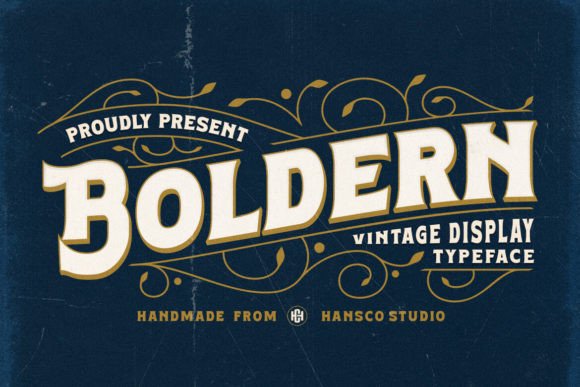
The Timeless Charm of Boldern: A Vintage Typeface to Elevate Your Designs
I’ll never forget the design project that had me on a font quest for what felt like an eternity. My client wanted a vintage vibe for their branding, and I was determined to deliver. After scouring the internet and trying out countless typefaces, I stumbled upon Boldern – a hidden gem that instantly transported me to a bygone era. If you’re a designer, crafter, or creative hobbyist looking to add a touch of old-time charm to your projects, you’re in luck! Boldern is a vintage typeface font that’s about to become your new best friend.
An Honest Review: The Good, the Great, and the Quirky
What I Love About Boldern ✨
- ✅ Elegant and nostalgic feel that’s perfect for vintage-inspired designs
- ✅ Beautifully crafted with attention to detail
- ✅ Versatile and can be used for a variety of design projects, from branding to invitations
- ⚠️ Limited availability of certain characters, such as accented letters
- ⚠️ May not be the best choice for very long blocks of text, as it can feel a bit ornate
The Story Behind Boldern: A Designer’s Inspiration
Boldern was inspired by the classic typefaces of the early 20th century, when printing was an art form. The font’s creator, a talented type designer, spent countless hours pouring over vintage specimens and typography books to craft a font that would evoke the elegance and nostalgia of a bygone era. The result is a font that’s both timeless and versatile, perfect for designers looking to add a touch of vintage charm to their projects.
| Font Name | Boldern Font |
| Author | HansCo |
| What is Boldern font? | Boldern is a vintage typeface font designed to add an old-time charm to any design project. |
| Is Boldern suitable for body text? | While Boldern is highly legible, it may not be the best choice for very long blocks of text. It’s better suited for headings, titles, and short paragraphs. |
| Is Boldern available in different weights or styles? | Currently, Boldern is available in a single weight, but it’s designed to be versatile and can be used for a variety of design projects. |